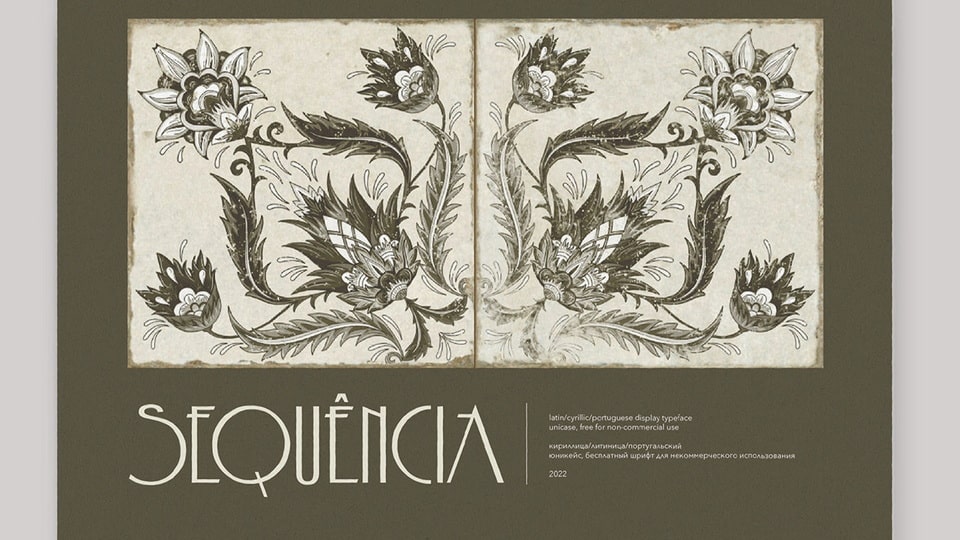
Download Sequência font, a narrow grotesque typeface for large size with a slight retro touch. All strokes within the letter of Sequência font are strongly pressed against the top or bottom of the glyph.
Designer: Stanislav Chiganov